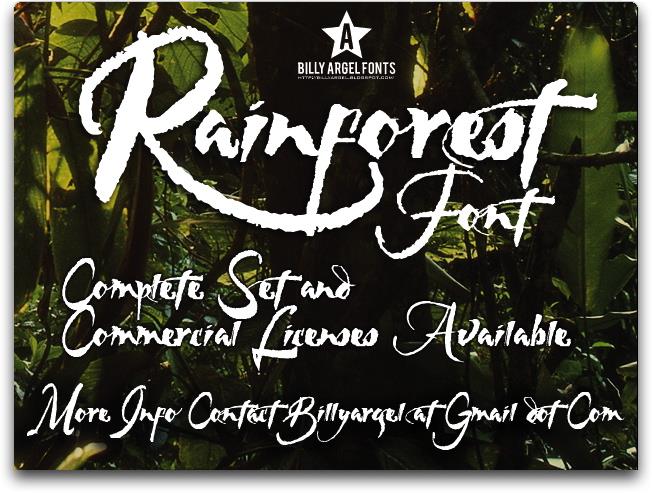
Free RAINFOREST Font
Download and enjoy this free rainforest font. Cool typeface to showcase your designs in a modern way. Download this typeface from the original source of Font Space. Easily amaze your audience with this fancy font and make your graphic designs pop up from the crowd.